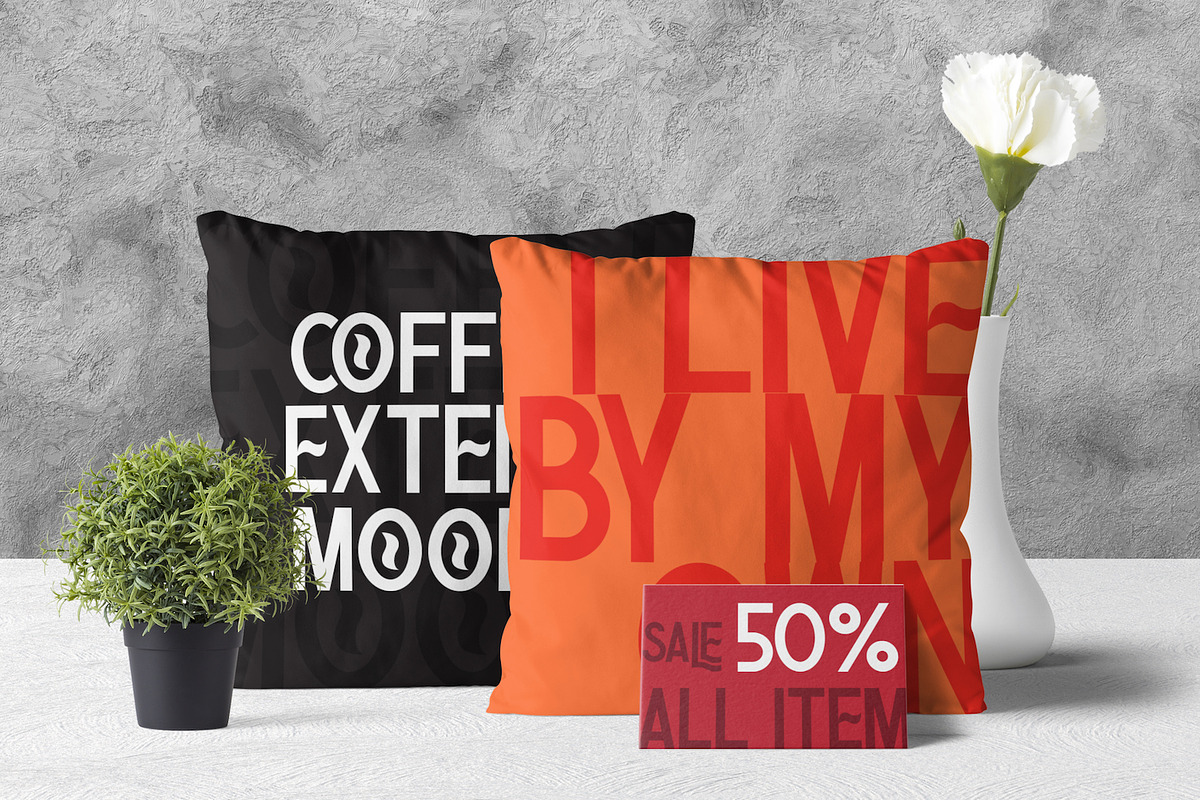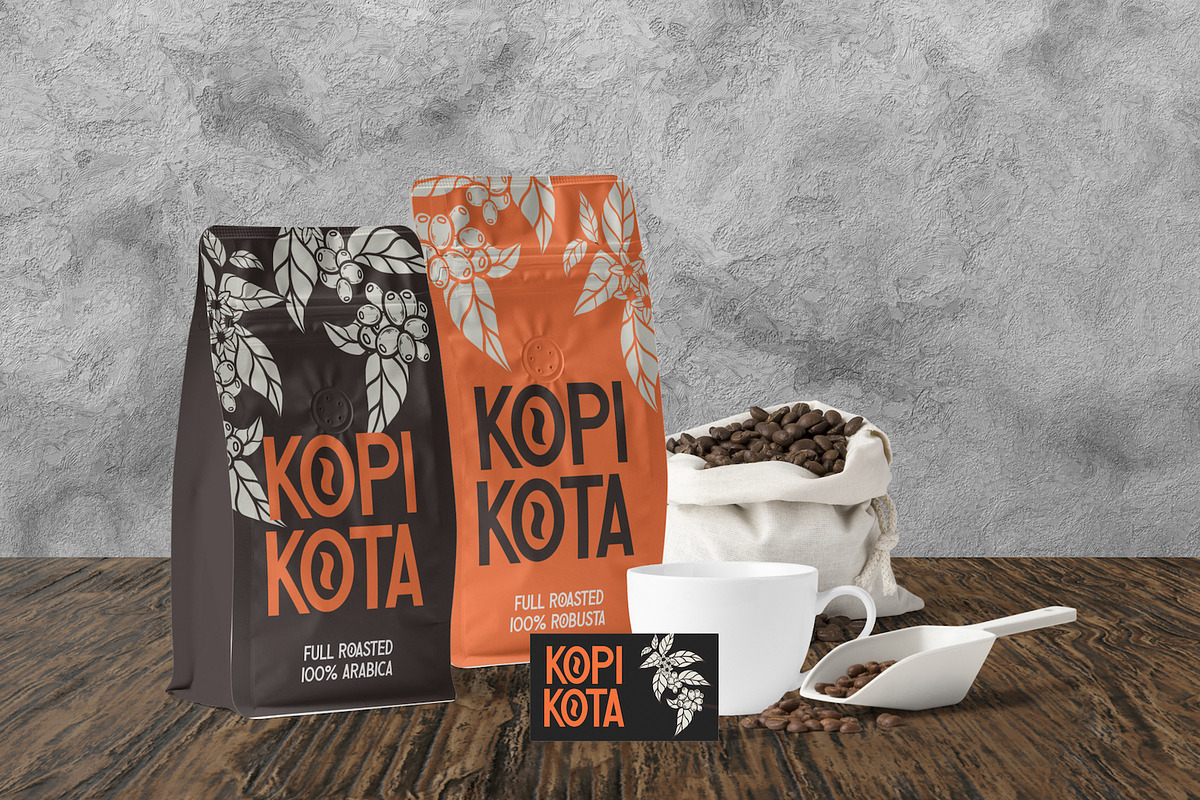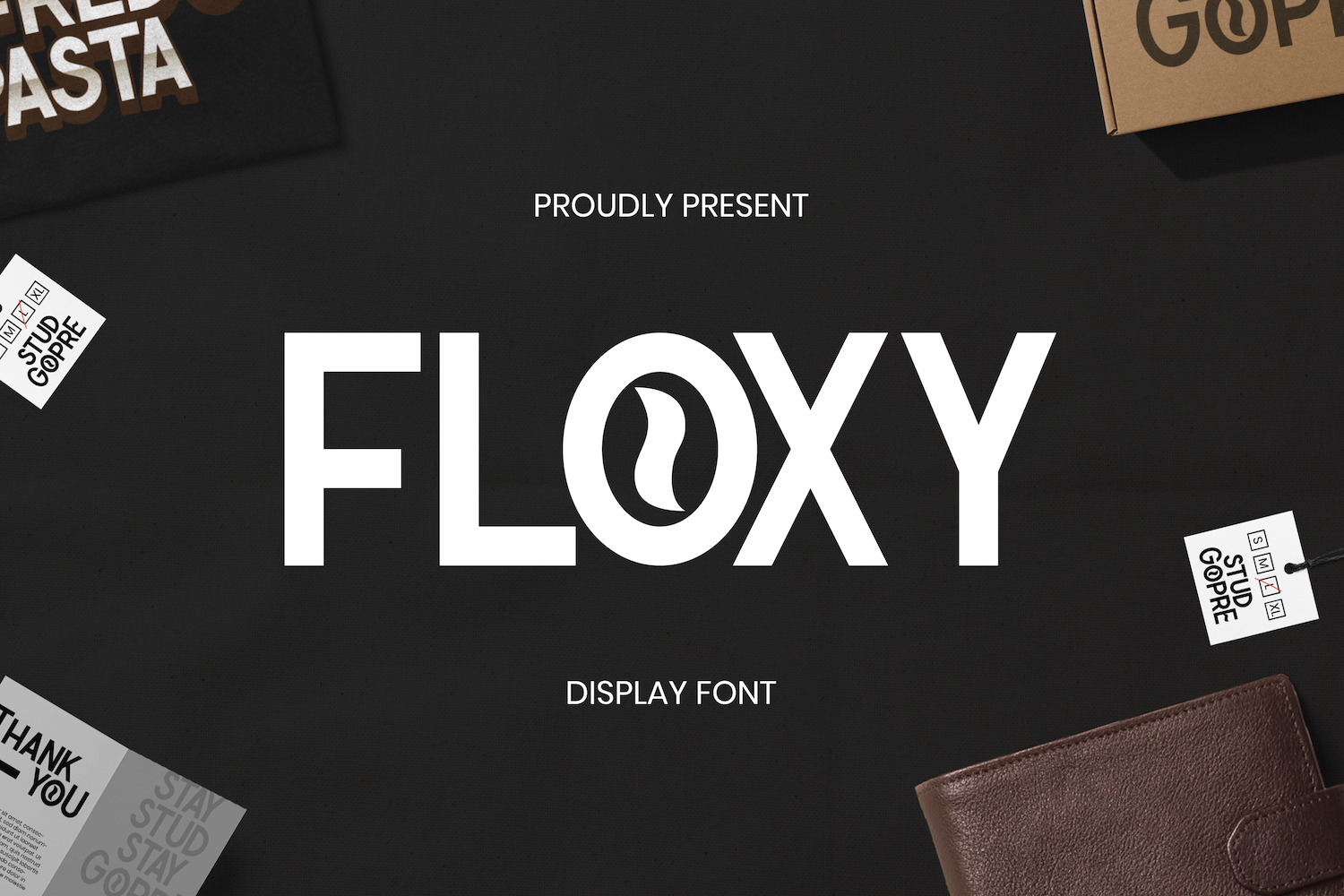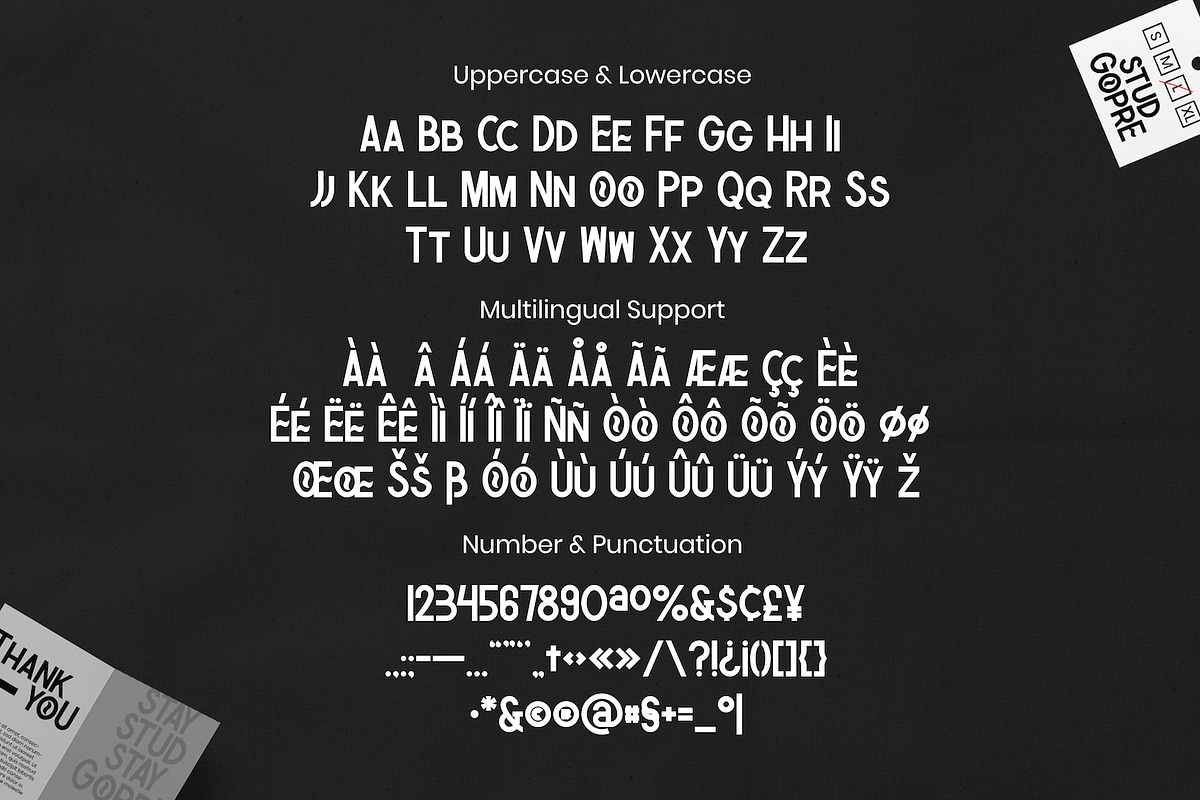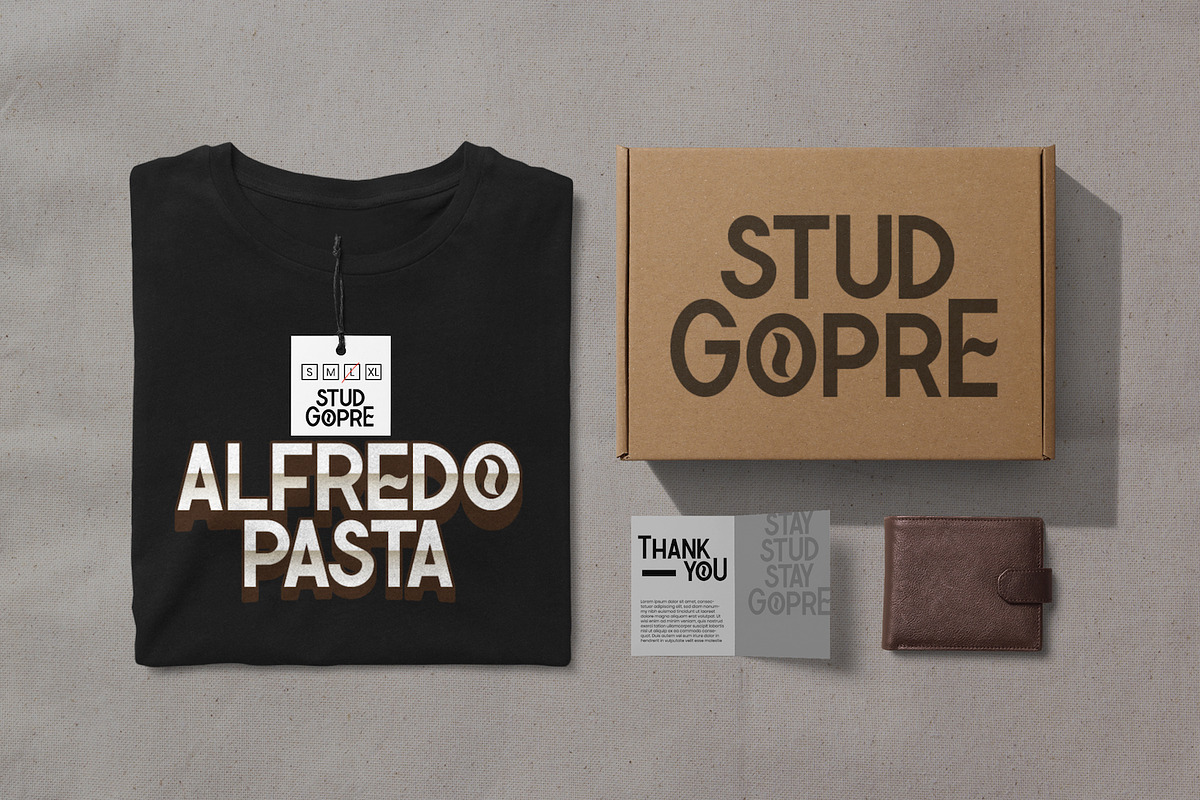
Floxy - Bold Display Font
Floxy is a bold display font designed to bring a aromatic energy to your creative projects. Characterized by its sturdy, condensed geometric structure, Floxy features a unique visual twist: letter "O" designed like coffee bean, making it an instant favorite for cafes, roasteries, and modern food branding.
This font ideal choice for lifestyle and culinary branding, coffee themed, cafe menus, and food labels.